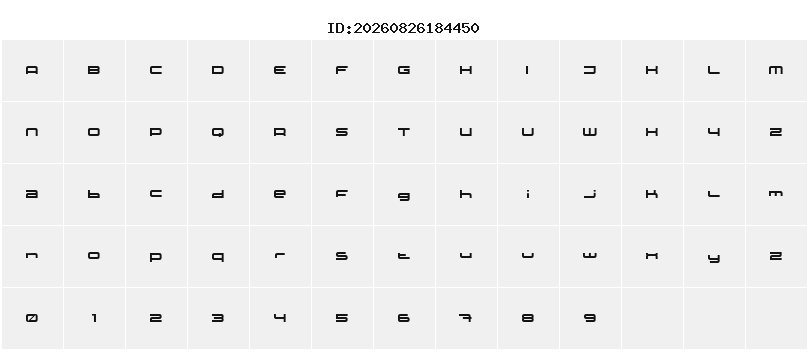
• Font Name: XXII STATIC
• Full Font Name: XXII STATIC
• Designer: Lecter Johnson
• Manufacturer: Lecter Johnson
About XXII STATIC.ttf
XXII STATIC.ttf is a modern, elegant sans-serif font designed for ultimate readability and visual harmony. Perfect for branding, headlines, web design, and print materials.